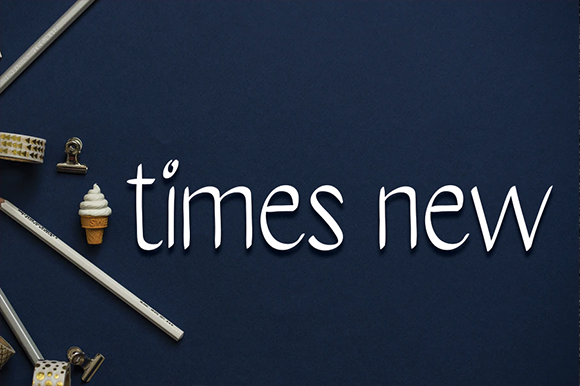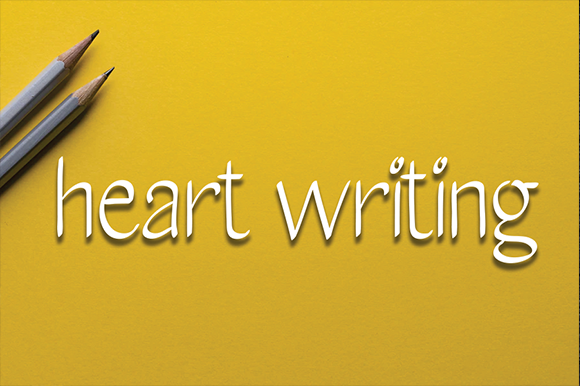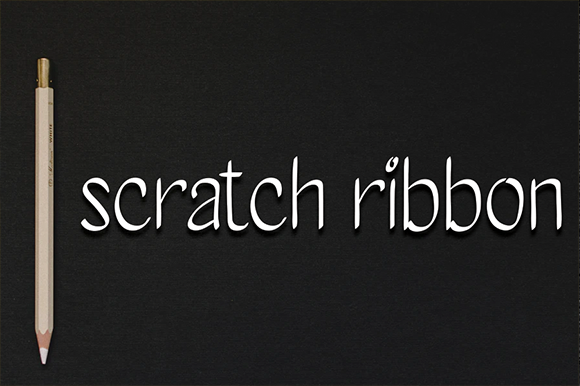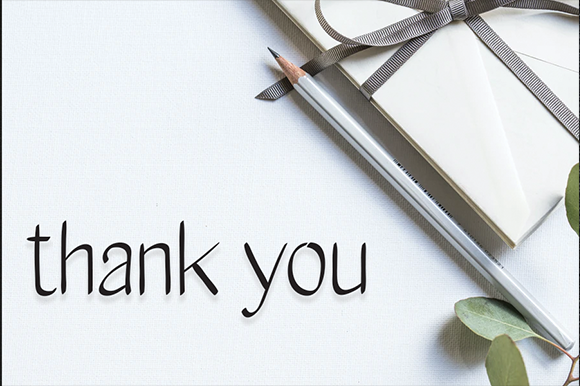
The Elegance of Calligraphy Fonts: Elevating Your Designs with Flair
Have you ever been in the middle of a design project, and suddenly, you’re struck by a creative block? You’re not alone! I recall working on a wedding invitation project, struggling to find the perfect font that exuded elegance and sophistication. That’s when I discovered the beauty of calligraphy fonts. In this article, we’ll dive into the world of calligraphy fonts, exploring their charm, versatility, and how to make the most of them in your designs.
A Personal Encounter with Calligraphy Fonts
I was working on a DIY wedding invitation project, and my client requested a font that was both elegant and whimsical. I spent hours scouring the internet for the perfect font, but nothing seemed quite right. That’s when I stumbled upon a calligraphy font that caught my eye. Its flowing lines, intricate details, and charming personality instantly elevated my design. I was hooked! From that moment on, I made it a point to explore more calligraphy fonts and understand their unique characteristics.
Calligraphy fonts have won my heart, but like any design element, they have their strengths and weaknesses.
• ✨ Elegant and sophisticated feel
• ✅ Versatile and adaptable to various design projects
• 💫 Unique and eye-catching
• 🎨 Opportunity to add a personal touch to your designs
While calligraphy fonts are stunning, there are a few things to keep in mind:
• ⚠️ Can be challenging to read in large blocks of text
• 🤔 May require adjustments to font size and spacing for optimal results
Now that we’ve explored the charm of calligraphy fonts, let’s dive into how to use them in popular design platforms.
If you’re looking for more fonts like calligraphy, here are a few alternatives to consider:
• Brush Script: A playful, cursive font with a whimsical feel
• Spencerian Script: An elegant, classic script font with a sophisticated personality
• Pacifico: A beautiful, modern script font with a relaxed, beachy vibe
• Great Vibes: A stylish, handwritten font with a fun and adventurous personality
The Story Behind Calligraphy Fonts: A Designer Inspiration
Calligraphy fonts have a rich history, dating back to ancient civilizations. The word “calligraphy” comes from the Greek words “kallos” (beauty) and “graphein” (writing). Calligraphy fonts are inspired by the art of beautiful handwriting, where every line, curve, and detail is carefully crafted to create a stunning piece of art.
Q: What is the best way to use calligraphy fonts in my designs?
A: The best way to use calligraphy fonts is to experiment and find the right balance between elegance and readability. Use them as headings, titles, or accents to add a touch of sophistication to your designs.
Q: Can I use calligraphy fonts for body text?
A: While calligraphy fonts can be beautiful, they may not be the best choice for large blocks of body text. They’re better suited for headings, titles, or short paragraphs.
Q: Are calligraphy fonts suitable for digital designs?
A: Absolutely! Calligraphy fonts can add a touch of elegance to digital designs, such as social media graphics, presentations, or website headers.
Q: Can I modify calligraphy fonts to fit my design needs?
A: Yes! Many calligraphy fonts come with OpenType features, glyphs, and stylistic alternates that allow you to customize and modify the font to fit your design needs.